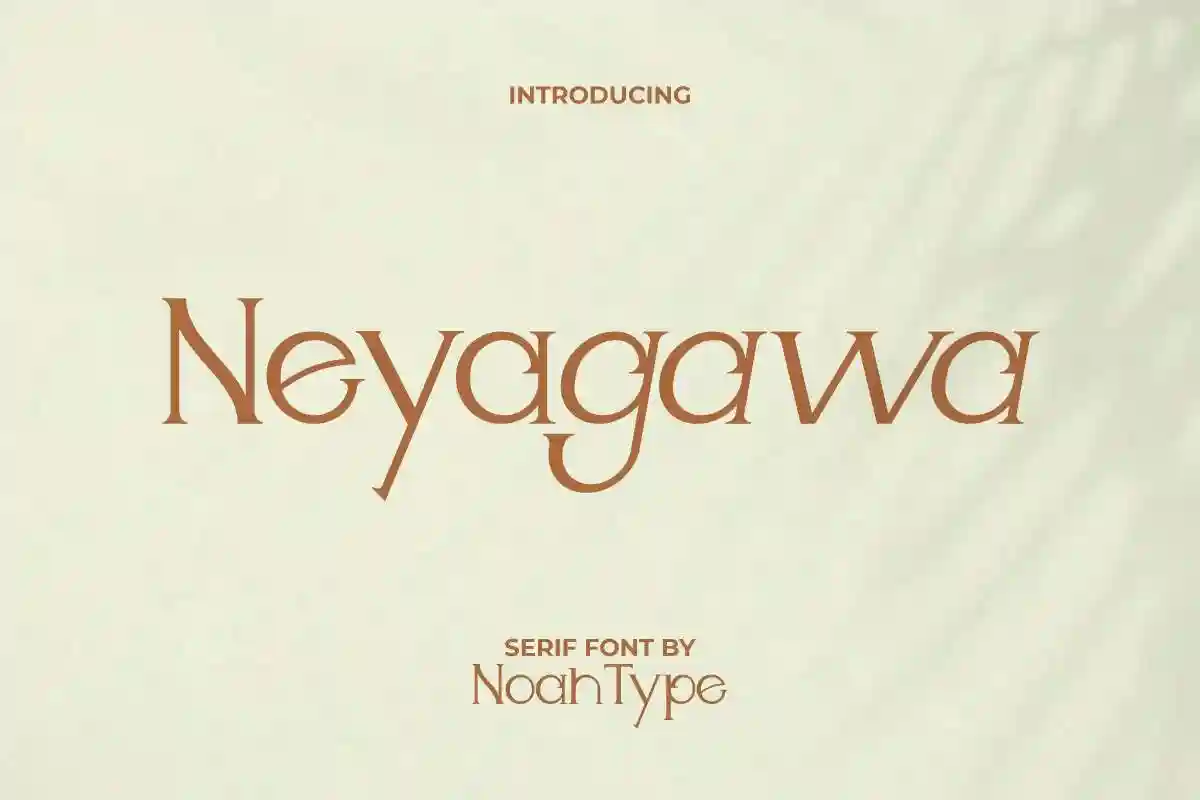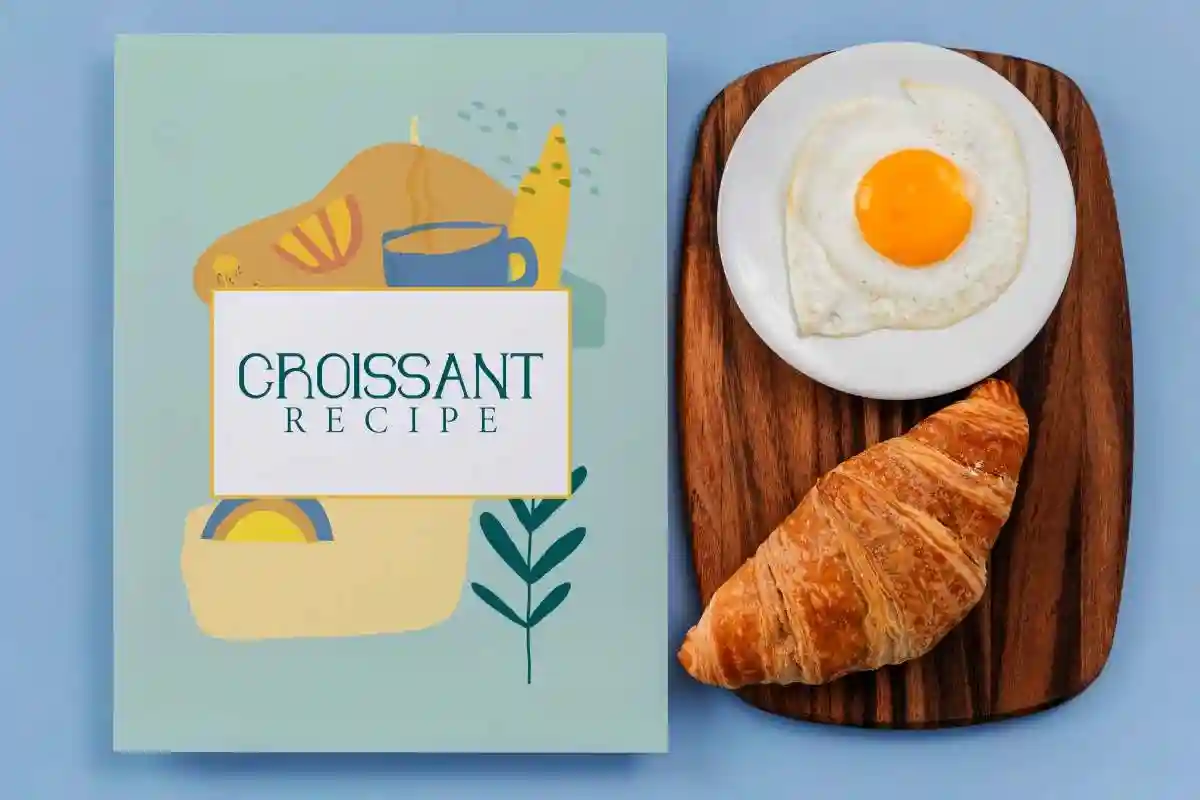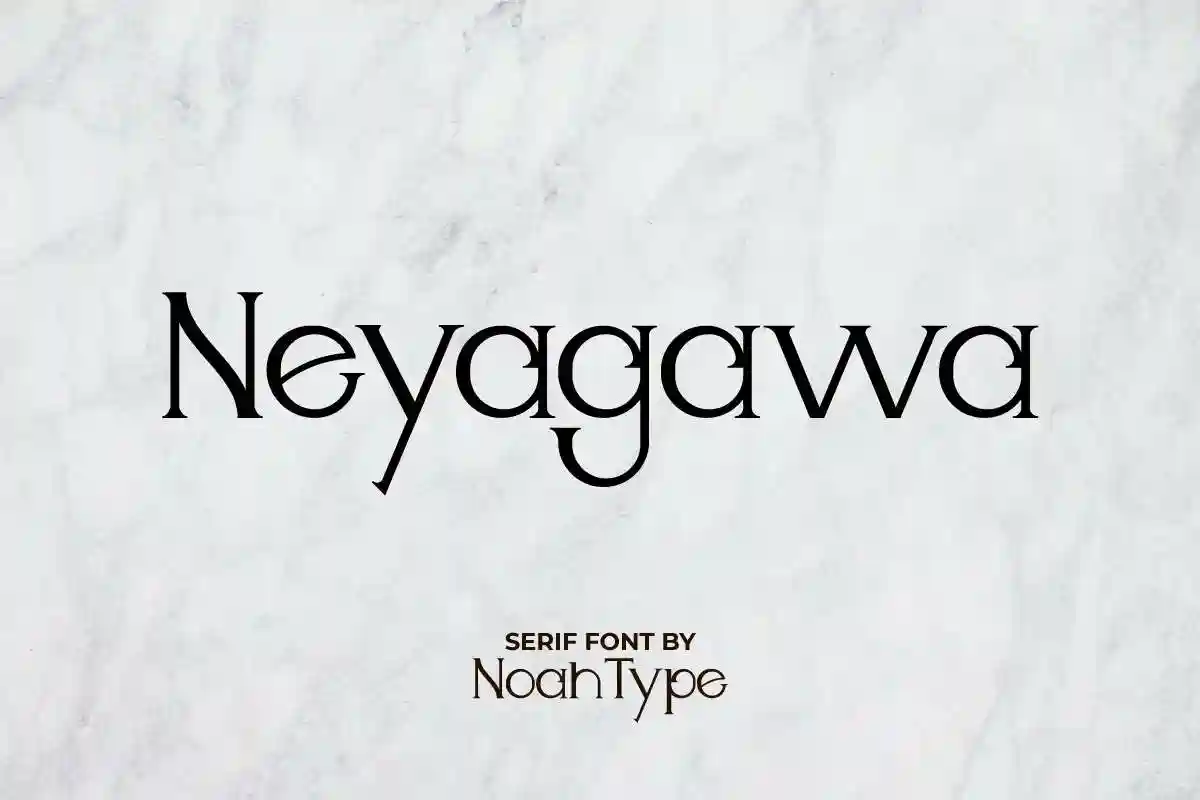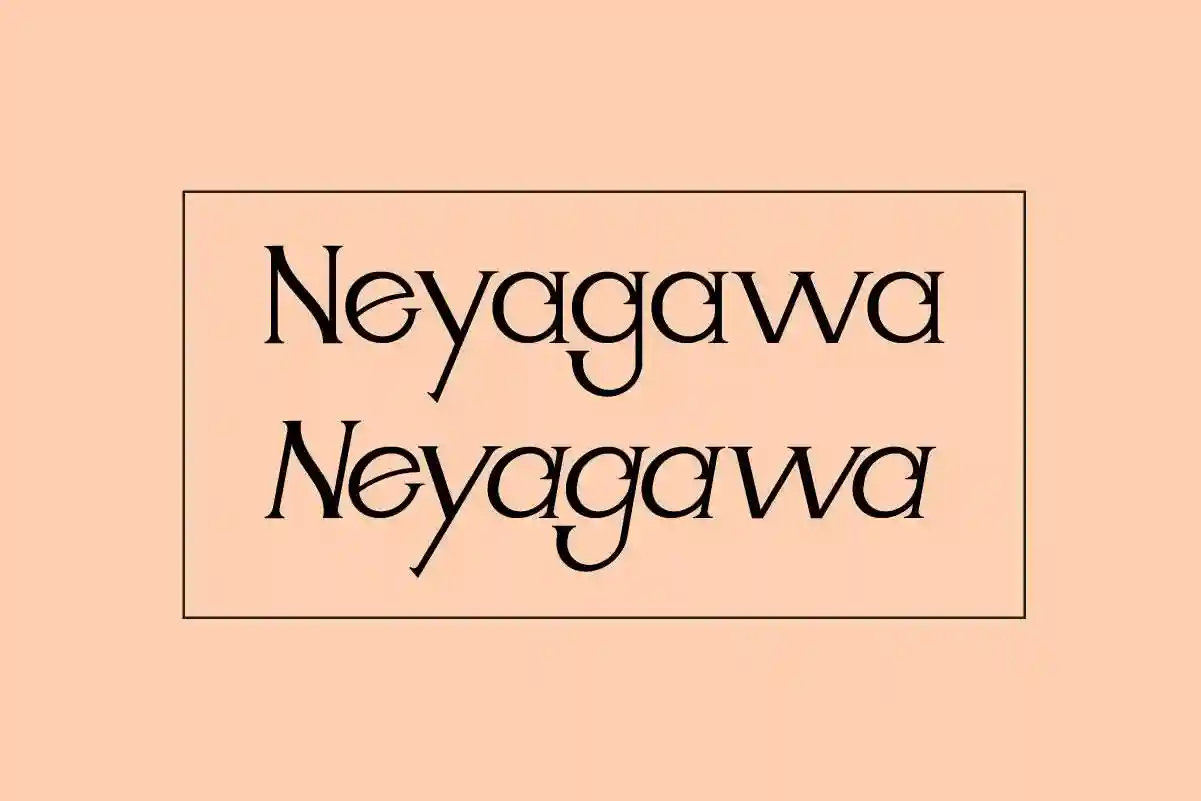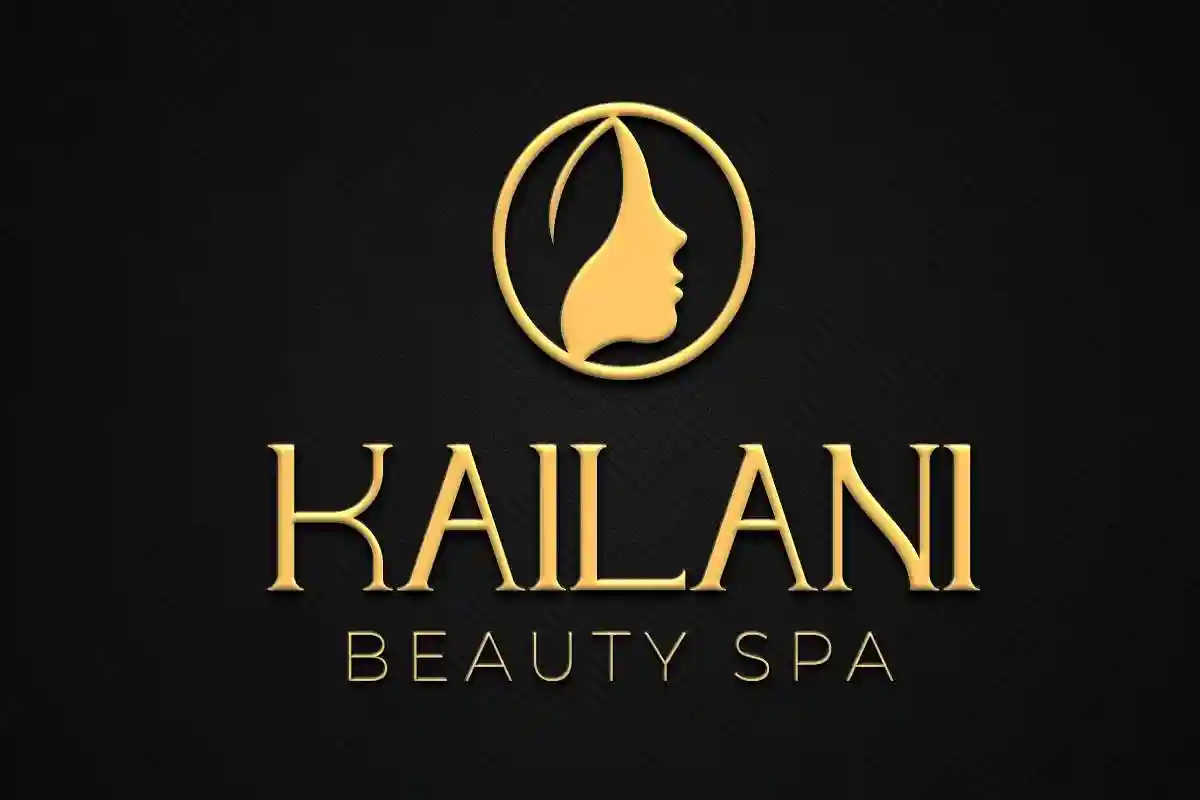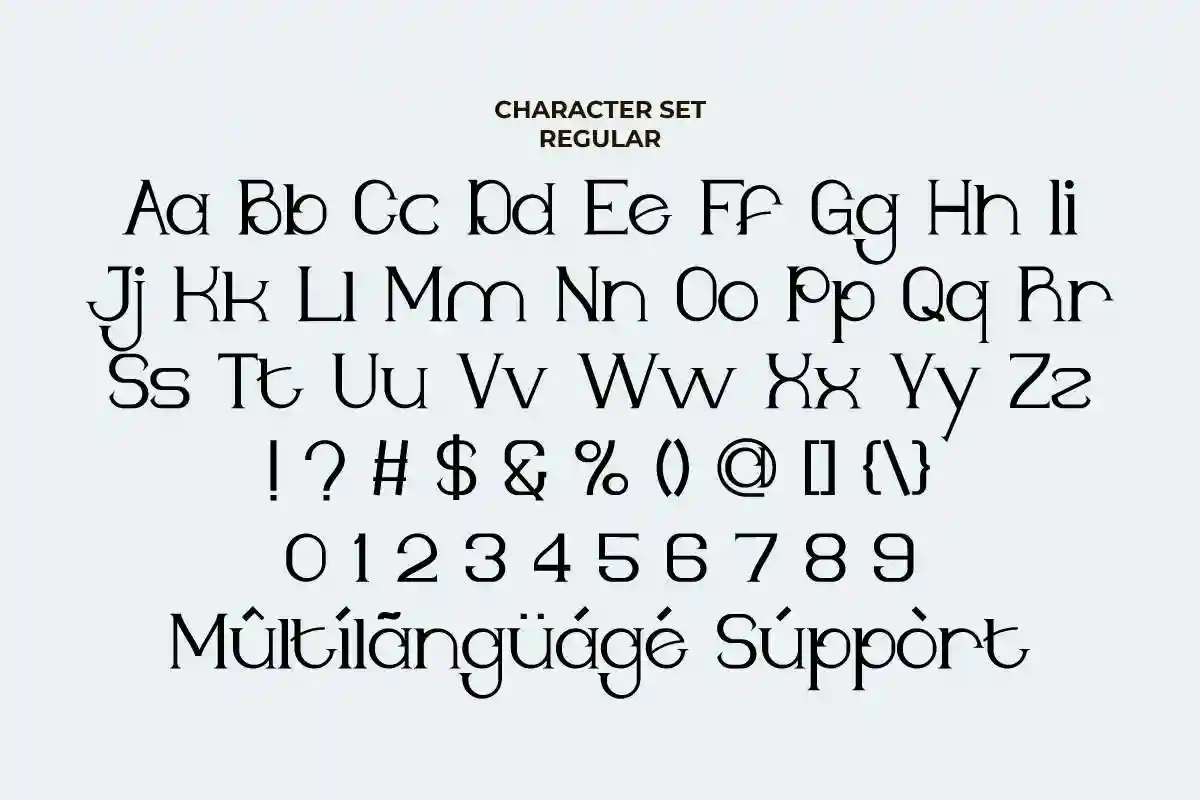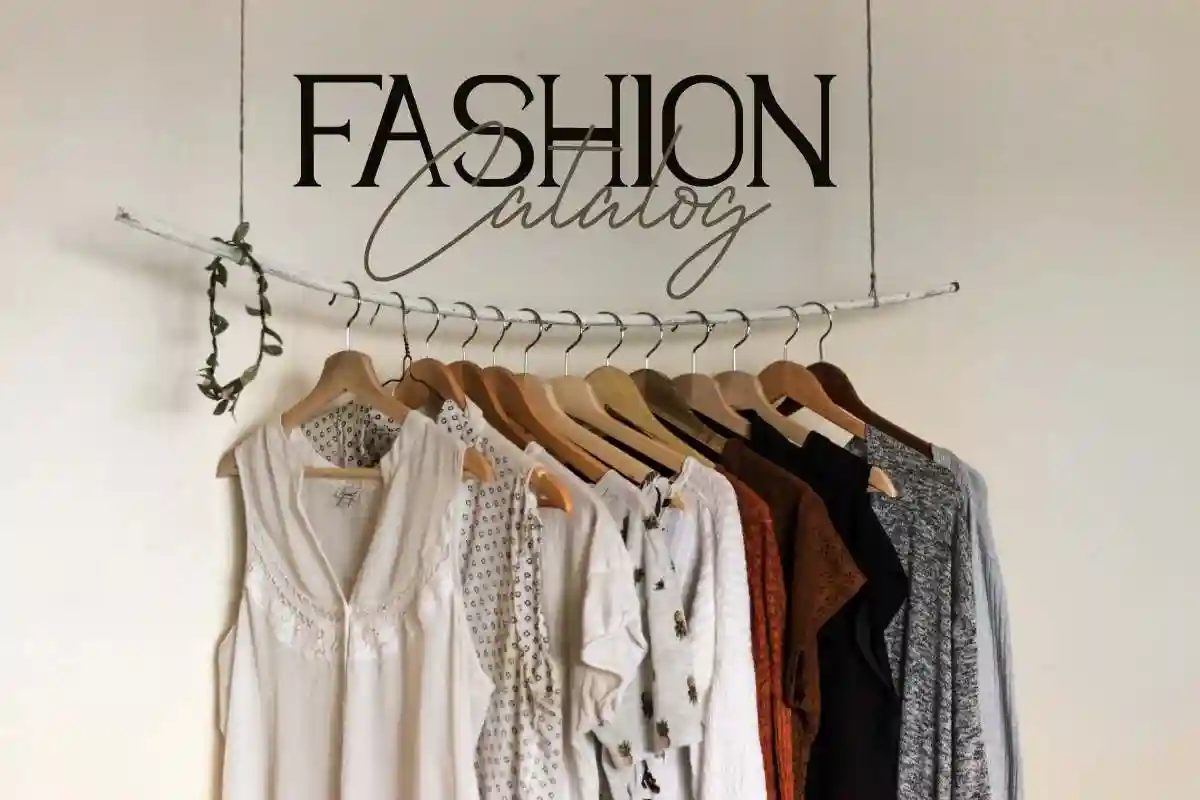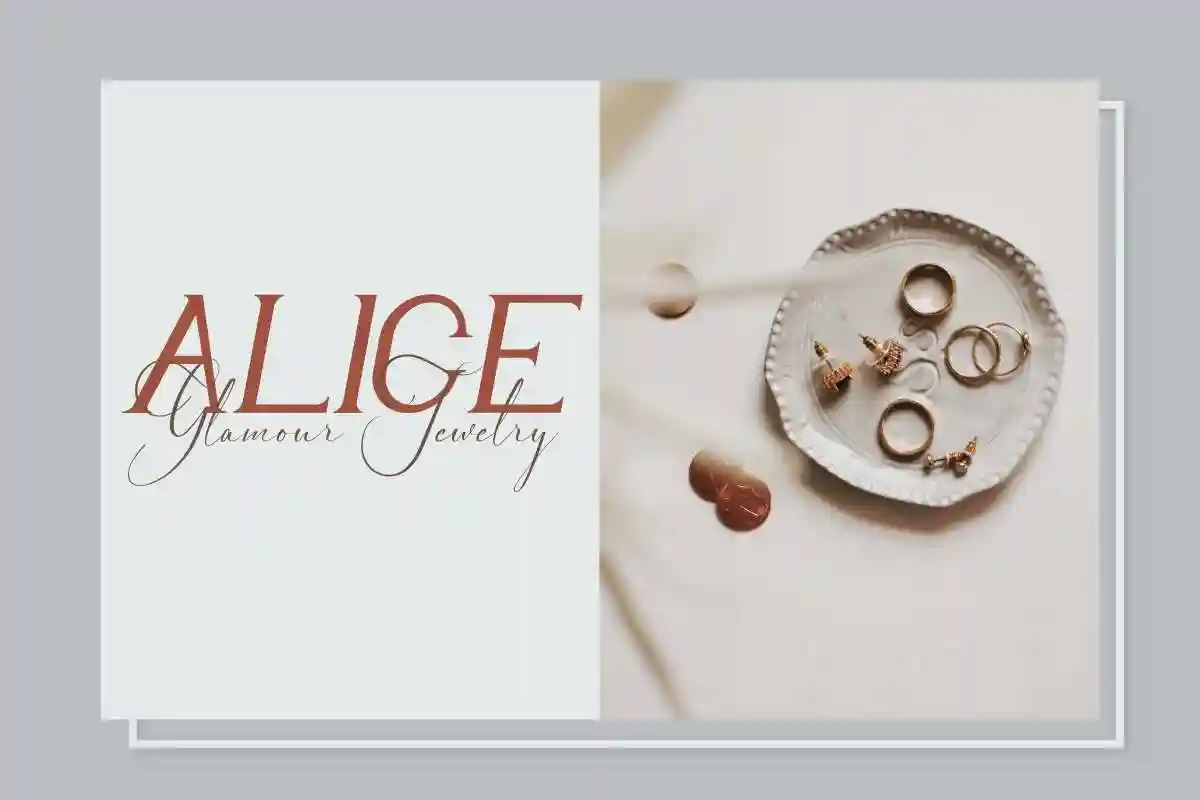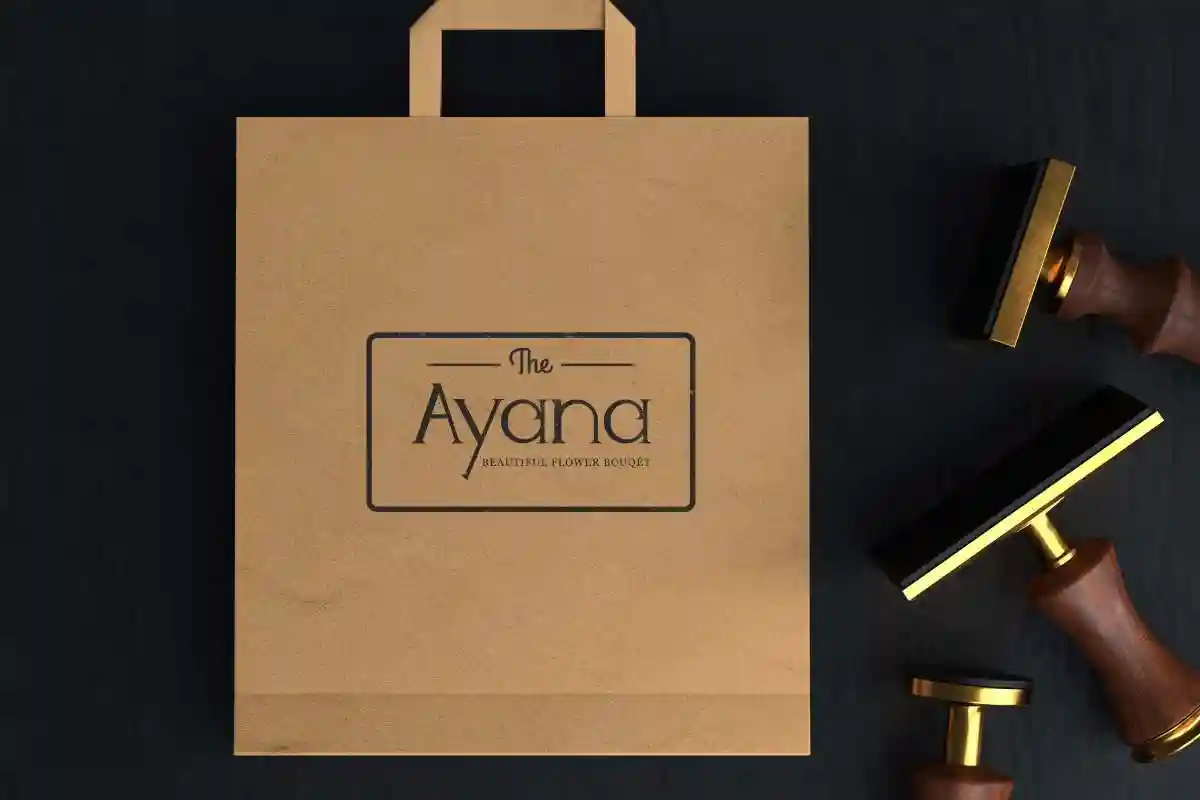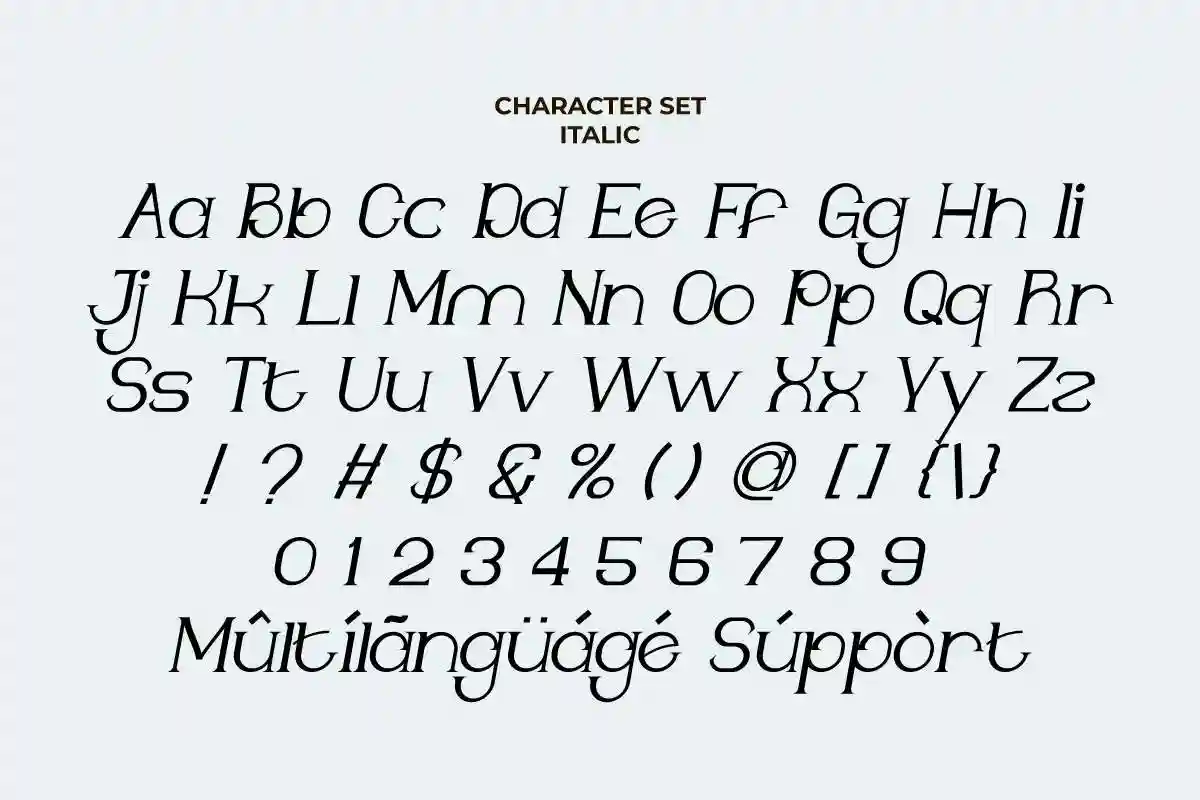
Neyagawa Font is a display sans serif font with japanese inspired style characters. It has a unique style that will bring the uniqueness and modern style to the design. It will works for games, technology, events, musician, artist, and any modern things. Neyagawa Font includes full set of Uppercase and Lowercase Basic Characters, Numerals and Punctuation. The font also comes with threes style options : Regular and Italic. It will be great for many projects including: brandings, poster, tittle, products, promotions etc.